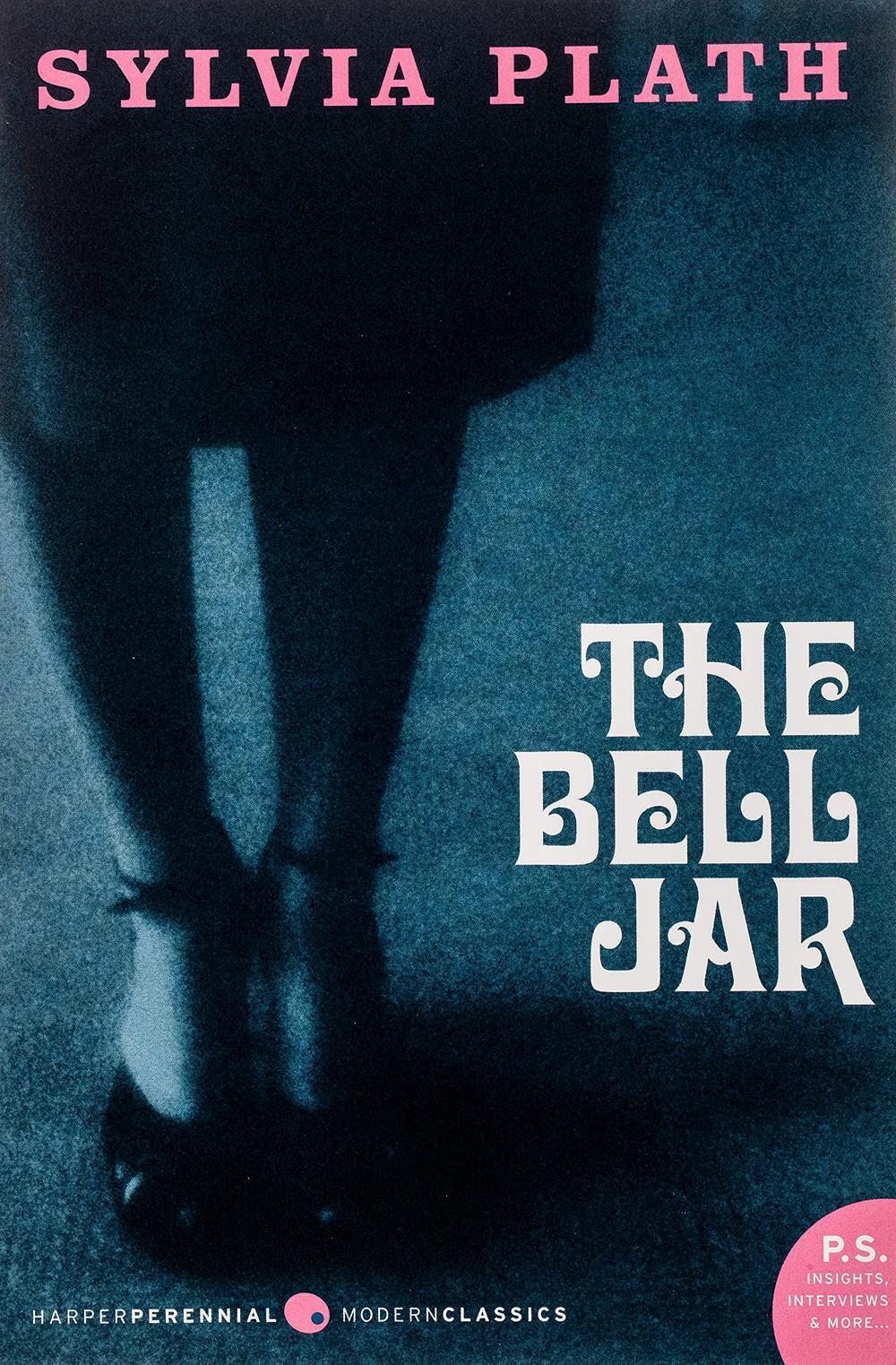
The Bell Jar Font
BookThe Bell Jar a book by Sylvia Plath, was first published in January 1963 under the pen name Victoria Lucas and eventually made available posthumously under her own identity. The work, a thinly veiled autobiography, explores 1950s cultural expectations of women while chronicling a young woman's mental collapse and subsequent recovery.
HarperPerennial's 2005 paperback edition's cover features Davida for the Bell Jar title created by Louis Minott in 1965 for VGC. The author's name probably uses Clarendon Bold.